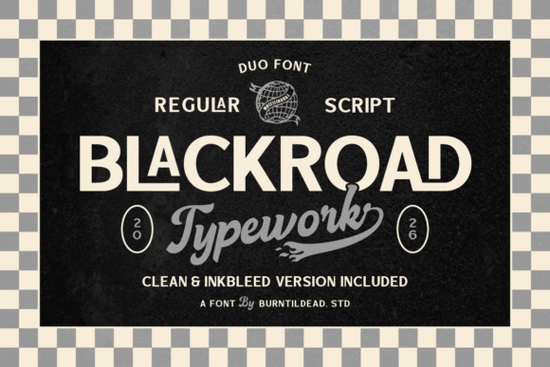
Blackroad Font is a versatile choice for anyone looking to add a retro flair to their designs. This bold and stylish duo font combines a clean sans serif with a smooth vintage script, making it ideal for projects that need both modern readability and a handcrafted feel. Whether you're working on logos, packaging, or social media graphics, Blackroad offers the flexibility to mix and match typography effortlessly.
The regular style of Blackroad ensures clarity and professionalism, while the script version adds a touch of authenticity and character. This combination allows for creative expression without sacrificing legibility. The font also includes alternate characters and inkbleed versions, which can give your design a more natural, vintage print effect. These details make Blackroad perfect for achieving an old-school look without the hassle of manual adjustments.
Designers and small businesses often rely on fonts like Blackroad to create a strong visual identity. Its retro personality makes it especially appealing for print-on-demand sellers and crafters who want to stand out in a competitive market. The font’s versatility means it can be used across various mediums, from digital projects to physical products.
One of the key advantages of Blackroad Font is its ease of use. The clean sans serif ensures that text remains readable even at smaller sizes, while the script style adds a unique, handcrafted element. This balance makes it suitable for a wide range of applications, from headlines and banners to labels and signage. The inclusion of alternate characters also allows for customization, helping you achieve a more personalized look.
How to Use Blackroad Font Effectively
When using Blackroad Font, consider pairing the regular style with the script version for contrast. This approach works well for headings and body text, creating a dynamic visual hierarchy. For example, you might use the regular style for main content and the script for titles or accents.
Experimenting with different combinations can help you discover what works best for your project. Try adjusting spacing, size, and color to see how the font performs in various contexts. The inkbleed versions are particularly useful for designs that aim to mimic traditional printing techniques, such as posters or flyers.
Best Practices for Typography with Blackroad
- Balance contrast: Use the script style sparingly to avoid overwhelming the design.
- Test readability: Ensure the font remains clear and easy to read, especially in smaller sizes.
- Combine with complementary fonts: Pair Blackroad with other fonts that enhance its retro vibe without clashing.
Whether you're a designer, crafter, or small business owner, Blackroad Font offers a powerful way to express creativity with a vintage twist. Its combination of style and functionality makes it a valuable addition to any design collection.